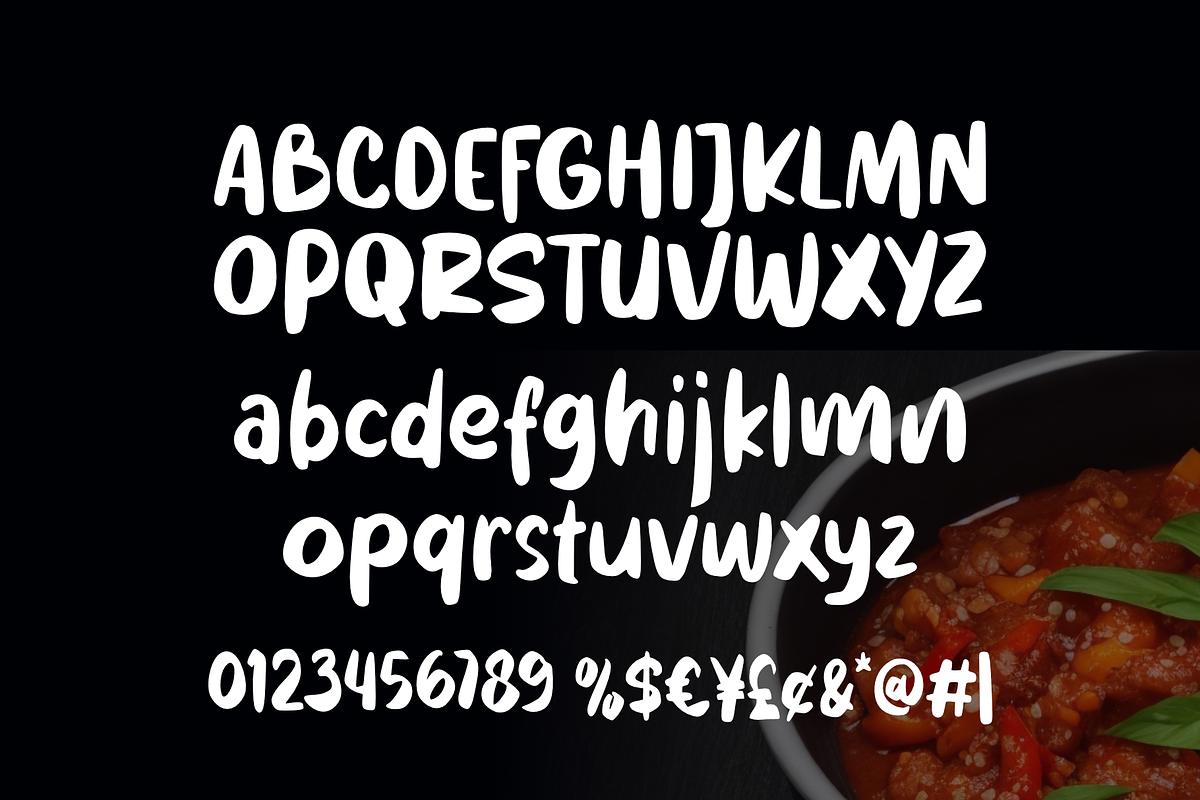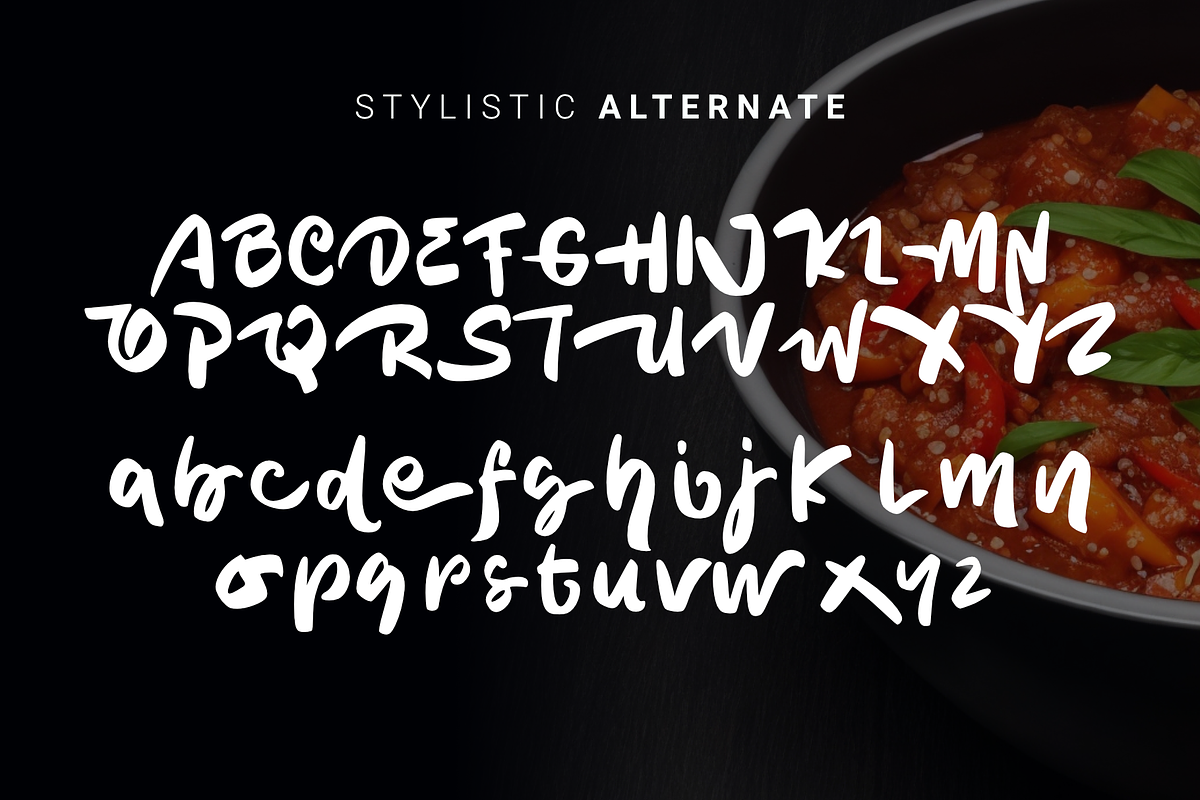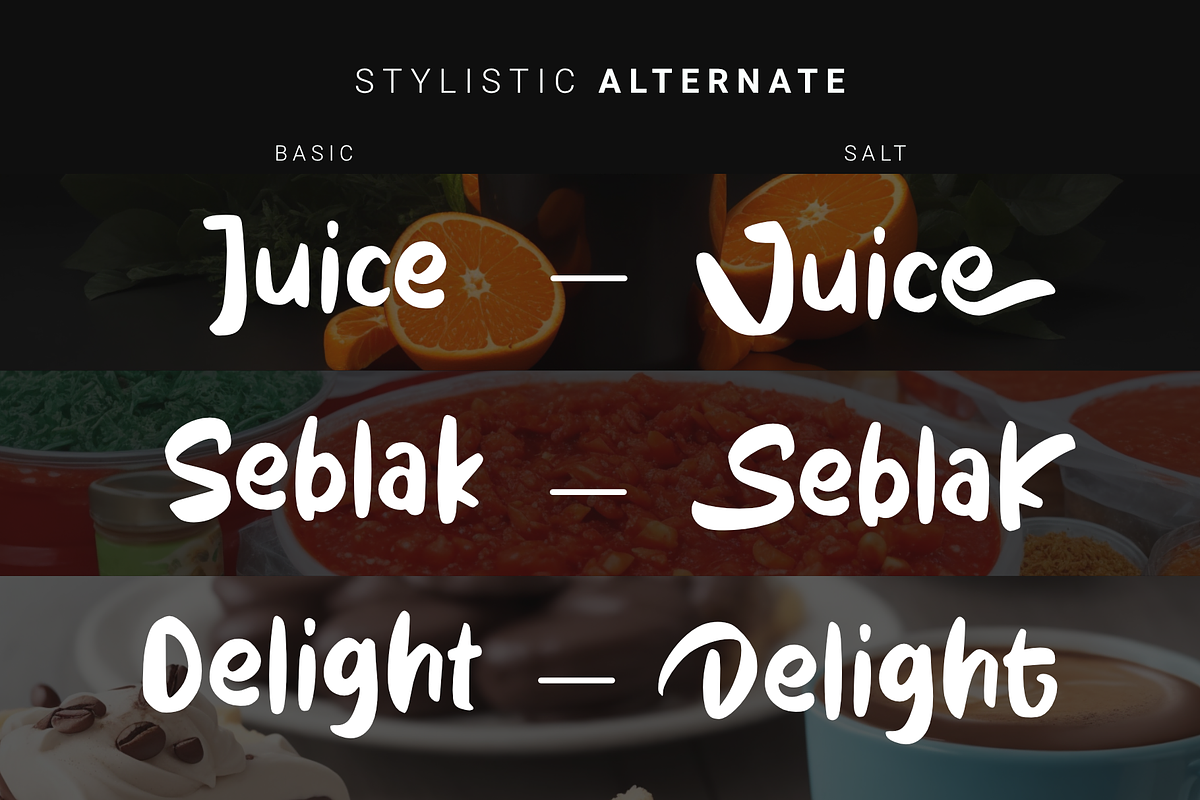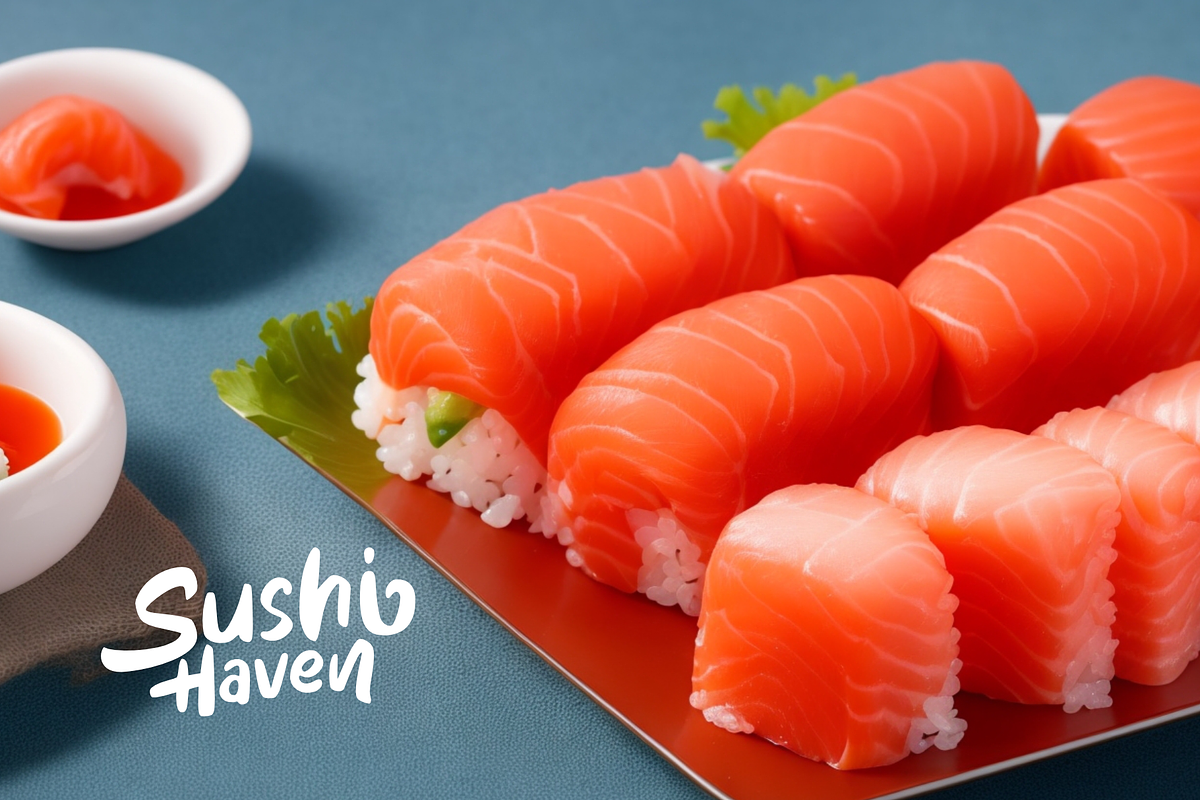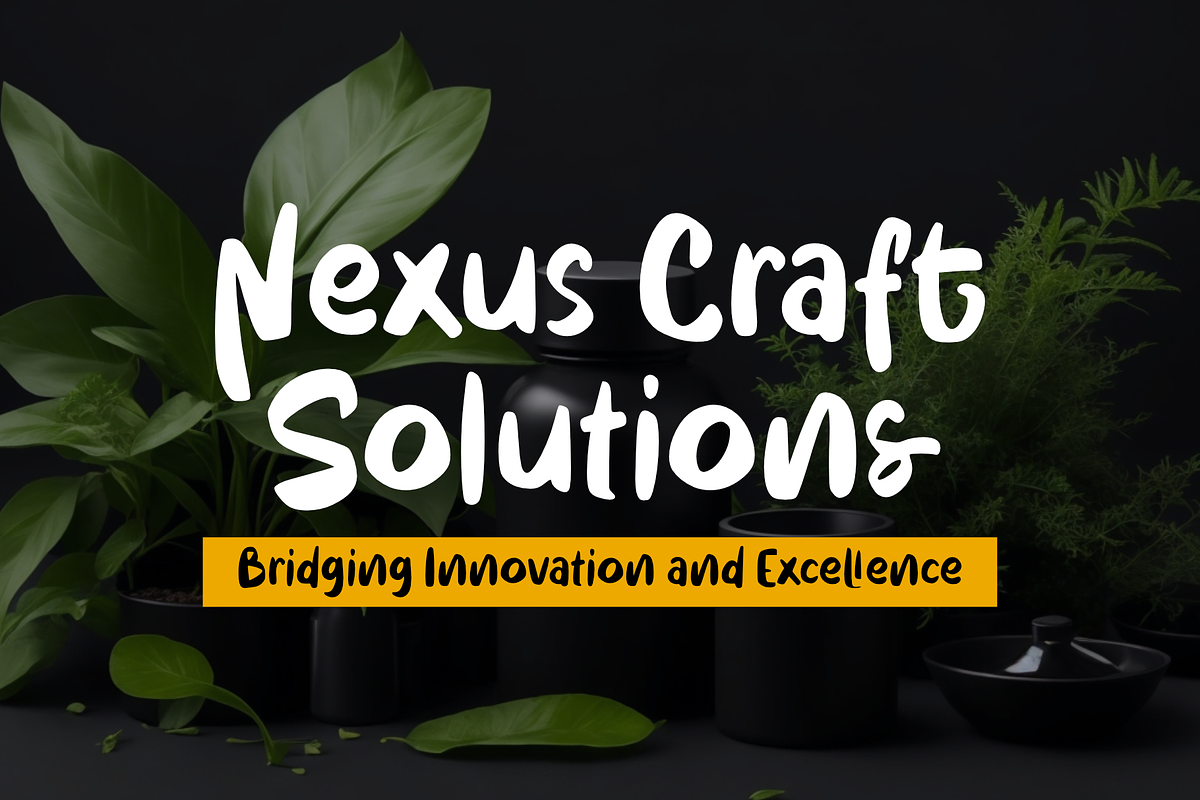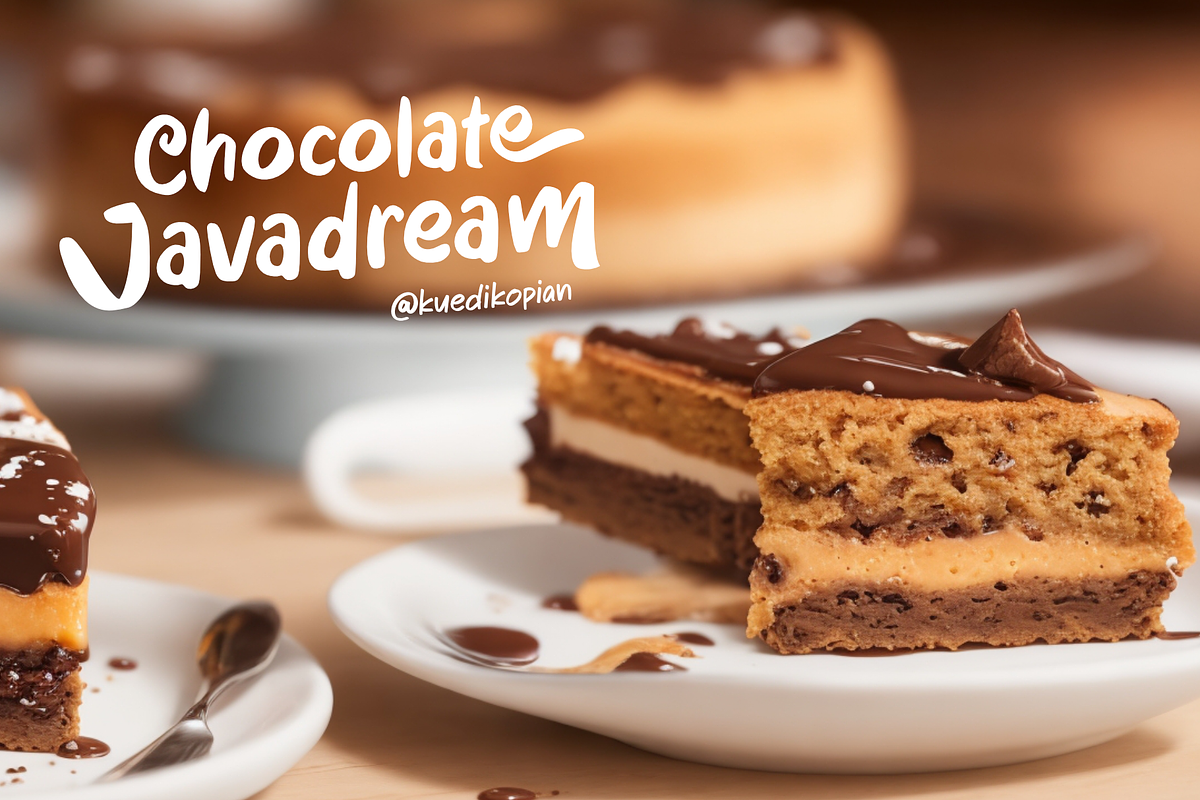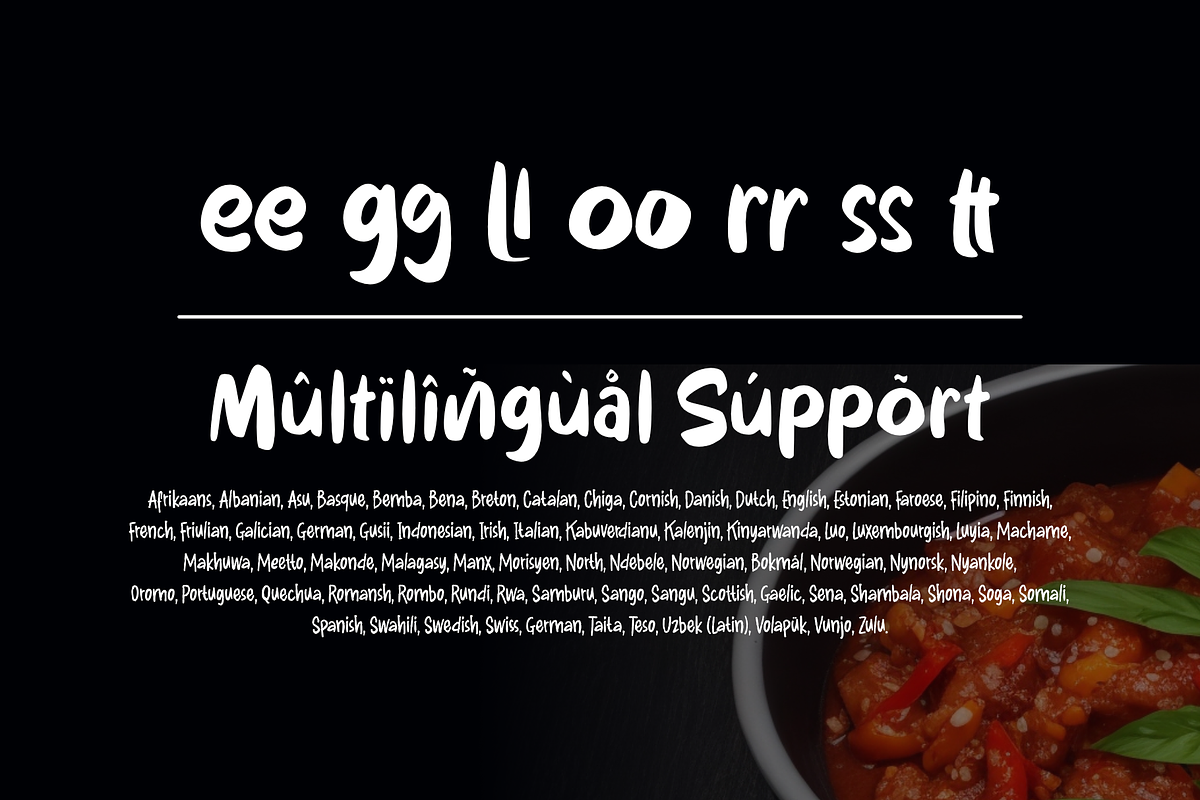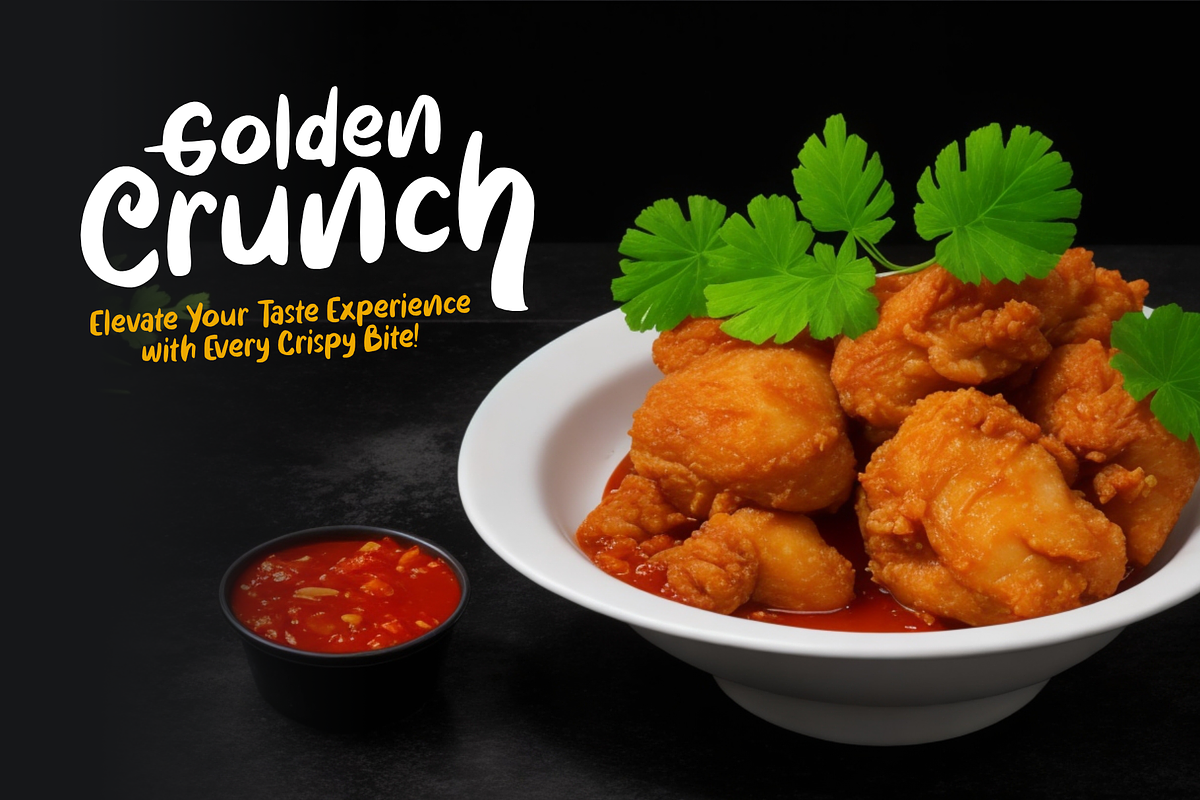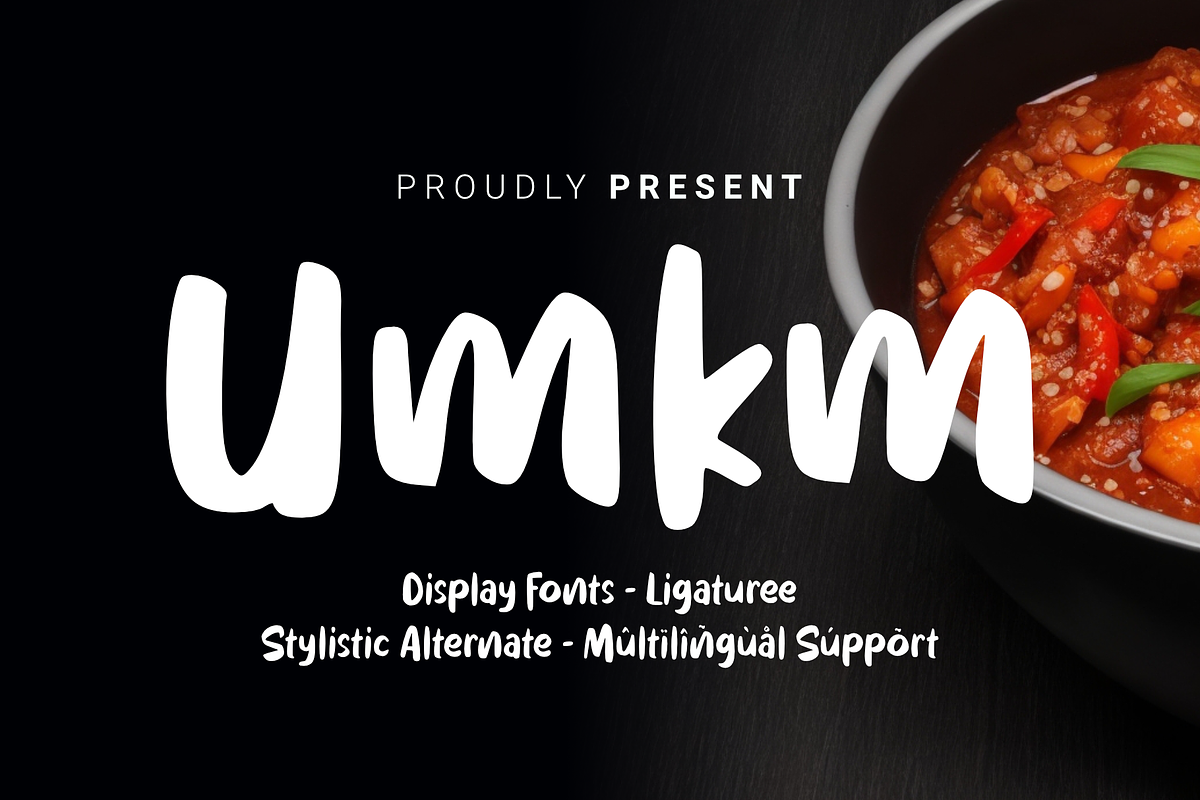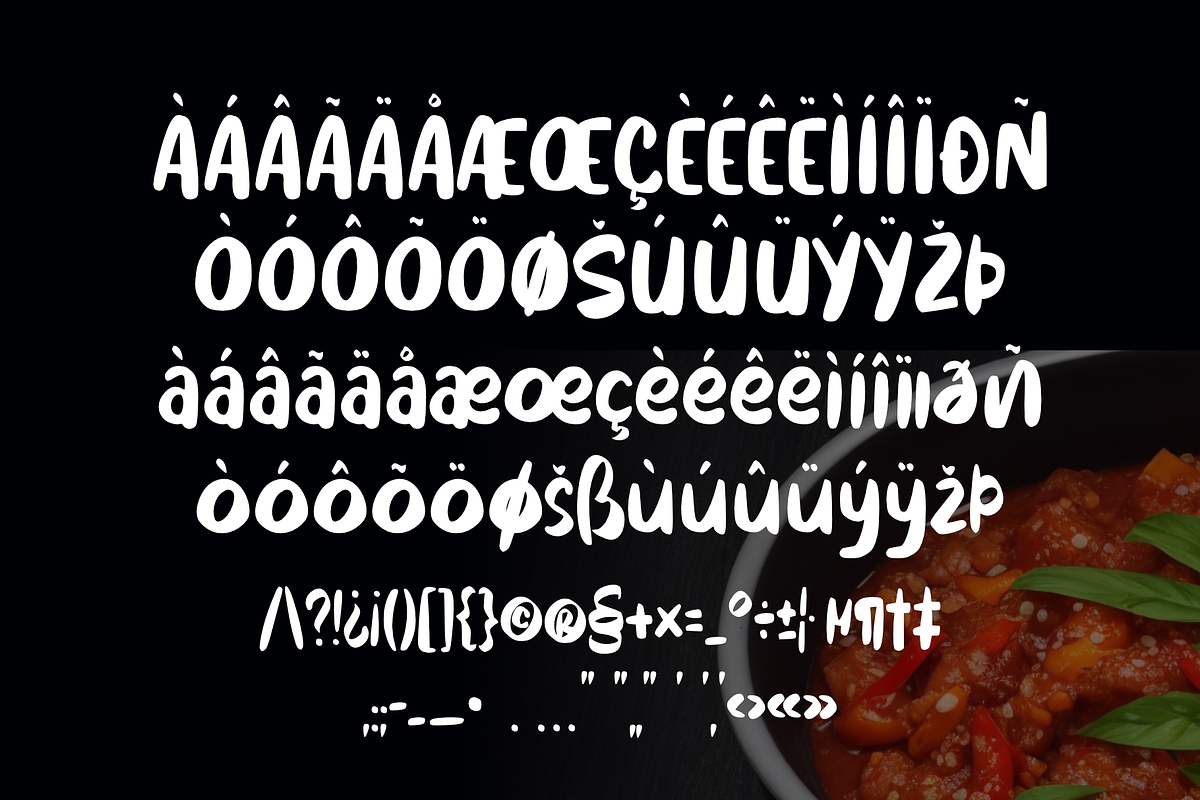
Umkm - Display
Umkm Font Display, crafted with a brush on iPad-Procreate, offers an exclusive and character-rich design experience to meet the branding needs of your products, advertisements, posters, and social media for your business. With each line uniquely generated, this font portrays unparalleled authenticity, bringing a distinctive touch of personality to every design project.
Designed with meticulous attention, Umkm Font Display provides stylistic alternative for both uppercase and lowercase letters, allowing for the creation of captivating and personalized logotypes. The brush technology on iPad-Procreate adds an authentic artistic touch, making this font an ideal choice for creating stunning and memorable designs for your small and medium-sized business.
- Ligaturee
- Stylistic Alternative
- Multilingual Accent